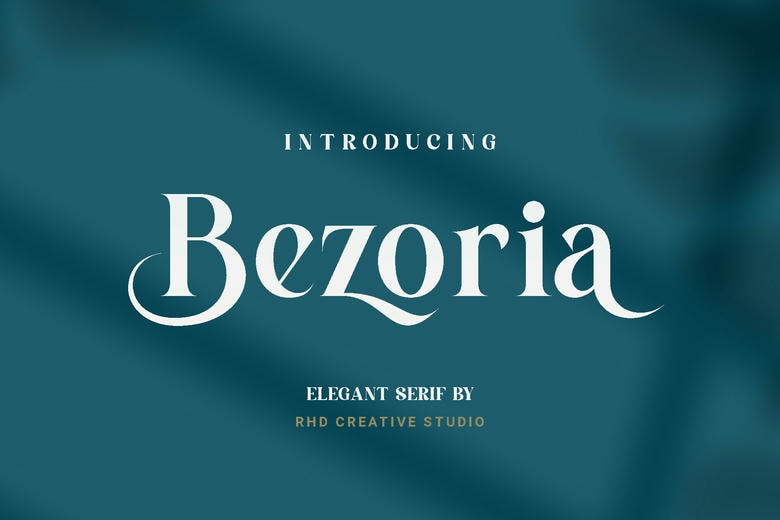
Bezoria Font
Bezoria is a serif typeface, which is a beautiful typeface. It is a refined logo design that cannot be mistaken in high-end logo designs, elegant wedding stationery, fancy branding, and editorial layouts. Bezoria offers the right balance of authority and artistic sophistication to make your text really memorable, whether you are designing a luxury boutique or a professional portfolio.
Bezoria Serif Font